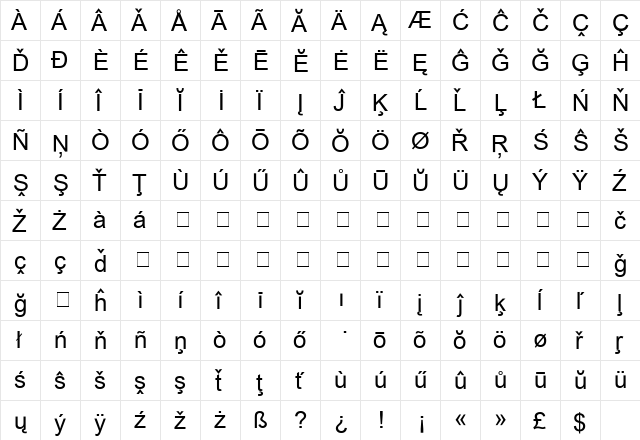
European-Helvetica Regular
Design Context for European-Helvetica Typeface
European-Helvetica is a composed and adaptable typeface that performs quietly and consistently across a wide range of design contexts.